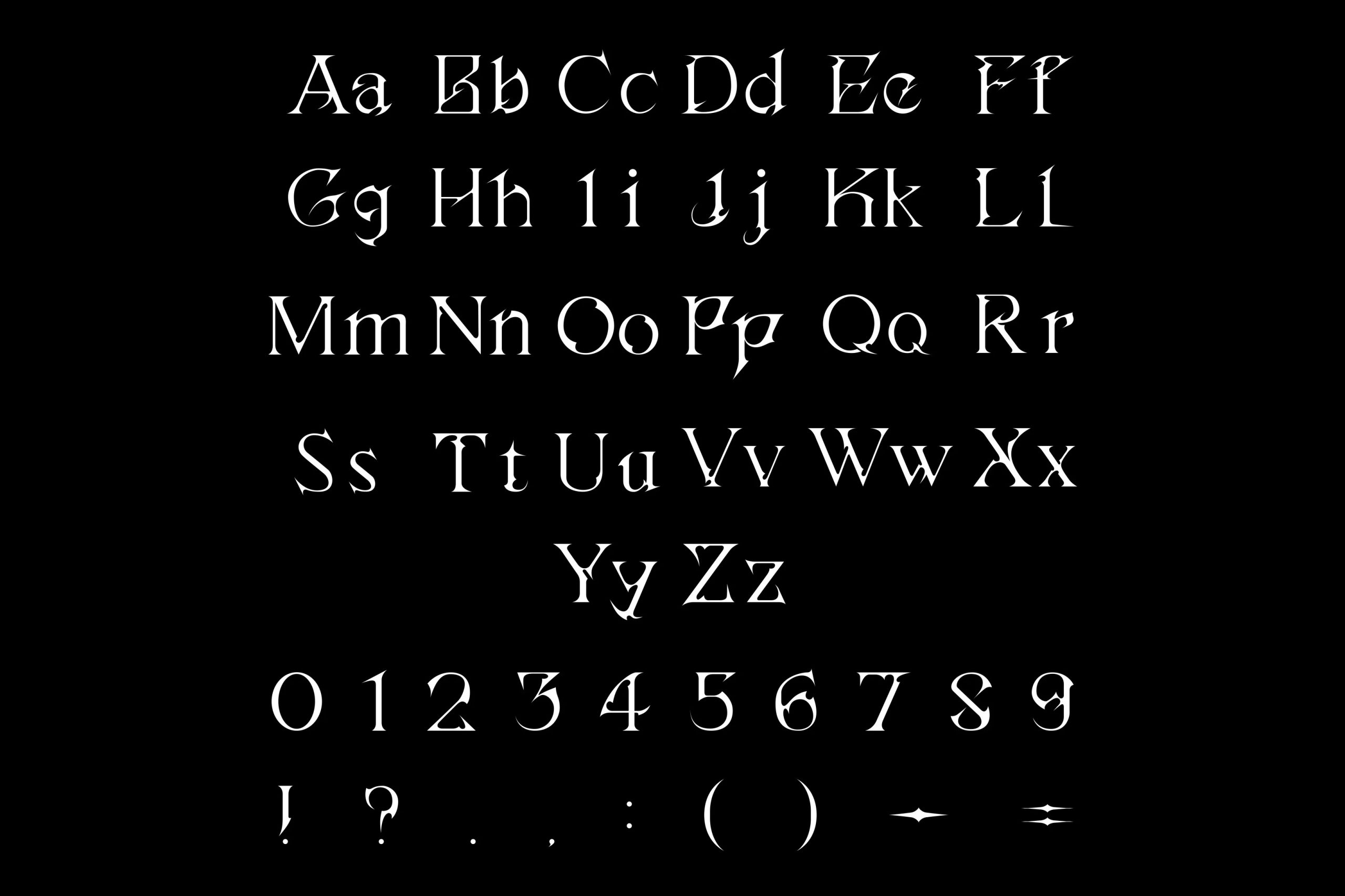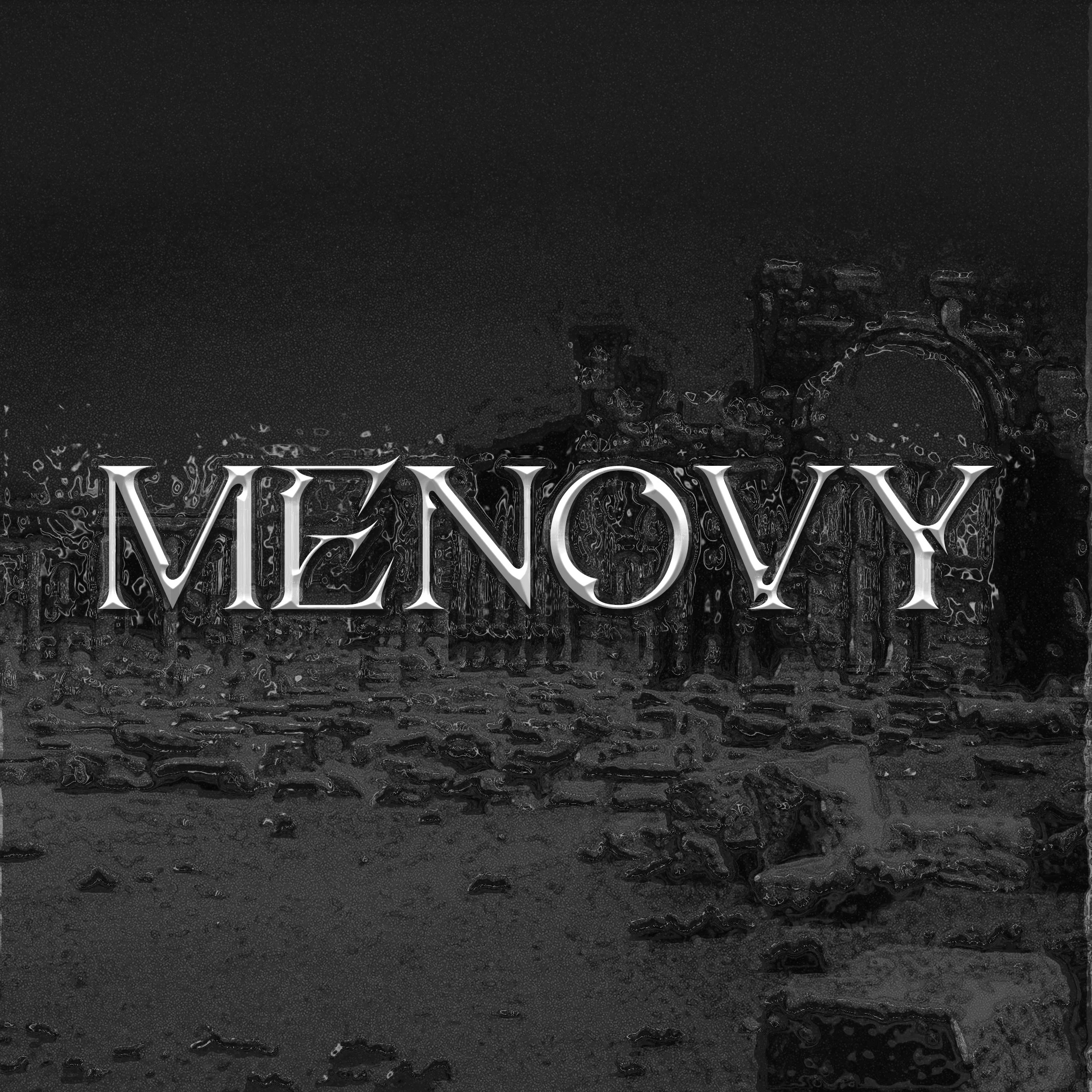
MENOVY Font
MENOVY Display Font
This is a dynamic display font ready to be paired with your logo and design. Made from font designer named Danil Reyman. It is ideal for headlines, headers, logos, labels, packaging, postcards, presentations, magazines, invitations, and more.
During what the world is going through right now, the ideas of humanism, chanted by the art of the Renaissance, came to mind. Signature features of paintings and architecture of that era – lively forms, volume, filigree decorative elements – have moved into my work. Of course, mixed with my favorite gloomy aesthetic.